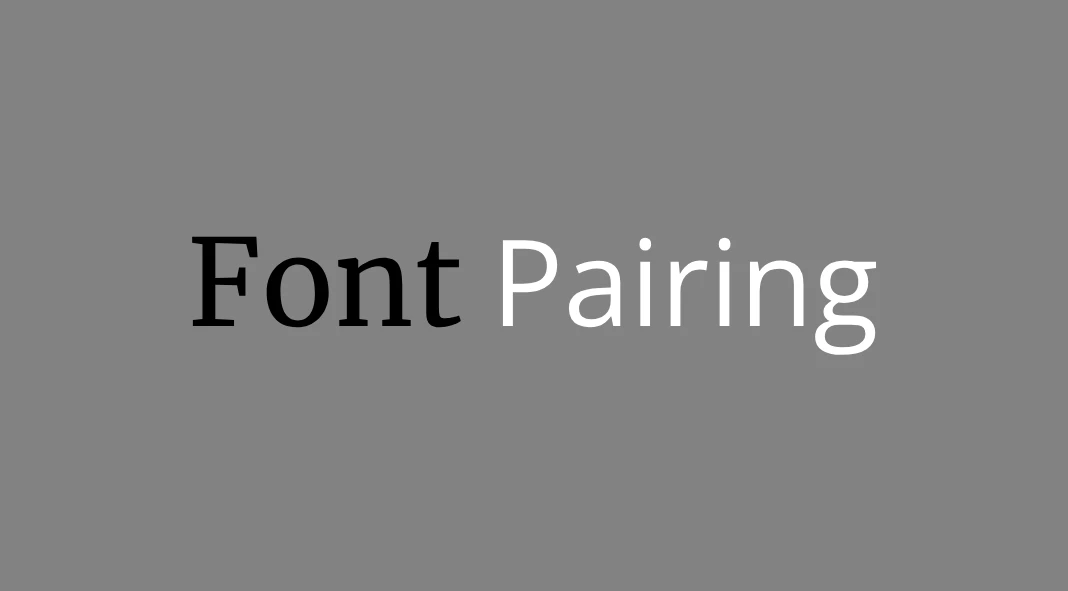
Has this ever happened to you? You looked at a design and thought something was off. Maybe it was the colors, but often, the culprit is the font pairing. It’s like an awkward dance where the partners just don’t click. You’ve probably seen it: a beautiful website ruined by fonts that clash like cymbals in a silent movie. It’s a common design pitfall. But it doesn’t have to be your pitfall.
You see, typography is more than just picking pretty letters. It’s about crafting a visual language. The right fonts can elevate a design, make it readable, and evoke the right emotions. The wrong fonts? Well, they can make your message fall flat. They can confuse your audience. They can even make your brand look unprofessional.
Think about it. Have you ever landed on a website where the fonts were hard to read? How did that make you feel? Probably frustrated, right? And what did you do? You probably left. That’s why mastering font pairing is crucial. It’s not just for designers. It’s for anyone who wants to communicate effectively. It’s for anyone who wants to make a great impression.
So, how do you avoid the font pairing faux pas? How do you choose fonts that sing in harmony instead of screaming at each other? It’s not about luck. It’s about understanding some basic principles. Ready to unlock the secrets to font harmony? Let’s get started!
Understanding the Basics: What Makes a Good Font Pair?
Before we jump into the rules, let’s talk about the underlying ideas. What makes two fonts work well together? It’s all about contrast and complementarity.
• Contrast is Key: You don’t want fonts that are too similar. That’s like putting two identical twins side by side. They blend together. Instead, you want fonts that are different enough to create visual interest. This could be in terms of weight, style, or mood. Think of a bold, strong font paired with a delicate, thin one. That’s contrast.
• Complementarity is Crucial: While you want contrast, you also need fonts that complement each other. They need to share some common ground. Maybe they have similar letterforms. Or maybe they evoke a similar feeling. They shouldn’t fight. They should dance together.
• Hierarchy is Important: Font pairing is also about establishing a clear hierarchy. Which font will be the star? Which font will play a supporting role? Usually, you have one font for headings. This is your attention-grabber. Then you have another font for body text. This needs to be easy to read.
The Golden Rules of Font Pairing: What to Do and What to Avoid
Now, let’s get to the nitty-gritty. Here are the rules that will help you pair fonts like a pro:
1. Pair a Serif with a Sans Serif: This is a classic combination for a reason. Serif fonts have those little “feet” or strokes at the end of the letters. They feel traditional and elegant. Sans serif fonts are cleaner and more modern. This combination offers great contrast. It’s also visually pleasing. Think of Times New Roman (serif) paired with Helvetica (sans serif).
2. Don’t Pair Two Similar Fonts: This is the biggest mistake people make. It’s confusing to the eye. It also looks amateurish. Avoid pairing two serif fonts that look alike. Avoid pairing two sans-serif fonts that look alike. The only exception might be when you’re using different weights of the same font family.
3. Consider the Mood: Every font has its unique personality. Some are serious. Some are playful. Some are elegant. Think about the message you want to convey. Does your brand evoke trust? Then you might want to use a classic serif font. Is your brand fun and modern? Then a sans serif might be better. Make sure your font choices match your brand’s tone.
4. Limit Yourself to Two or Three Fonts: Don’t go overboard. Too many fonts will create a cluttered and disorganized look. It will confuse the reader. Two fonts are usually enough. One for headings and another for body text. Sometimes you might need a third font. For example, for captions or quotes. But keep it simple. Don’t get too crazy.
5. Think About Readability: The most beautiful font is useless if no one can read it. Make sure your body text is legible. Choose a font that is easy on the eyes. Pay attention to the font size. Also, consider line height and letter spacing. These things affect readability.
6. Use Font Families: Using different weights of the same font family is a safe and effective way to create visual interest. It avoids clashing. You can use bold for headings. Then use regular for body text. It keeps everything consistent.
7. Test Your Font Pairings: Don’t just assume your fonts work well together. Test them out in different contexts. Look at them on different screens. Try them out on mobile devices. See how they look in different sizes. Get feedback from others. Does it look easy to read? Does it look professional?
The Perfect Match: Werksatz & Werkdruck from Identity Letters
Not too long ago, we introduced you to Werkdruck, the stunning new serif font by Moritz Kleinsorge from Identity Letters. Now, paired with its perfect match, Werksatz—a sleek, modern grotesque—you’ve got the ultimate font combo, all from one brilliant source.
Remember, the goal is to create a visual experience that enhances your message. It should make your content more engaging and more effective. When you get it right, font pairing can make all the difference. You’ll leave a lasting impression on your audience. So, go forth and create beautifully harmonious designs. You got this!